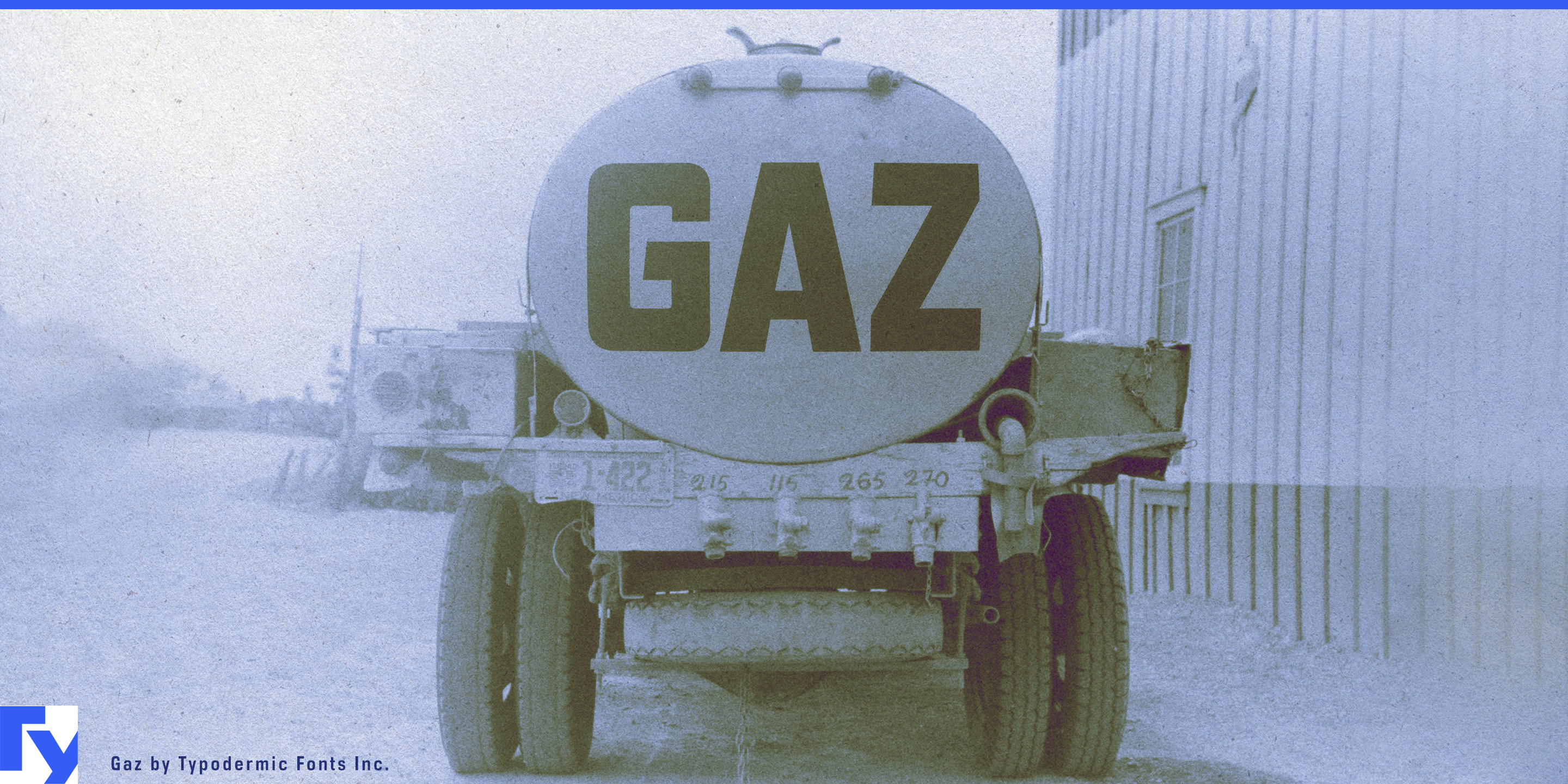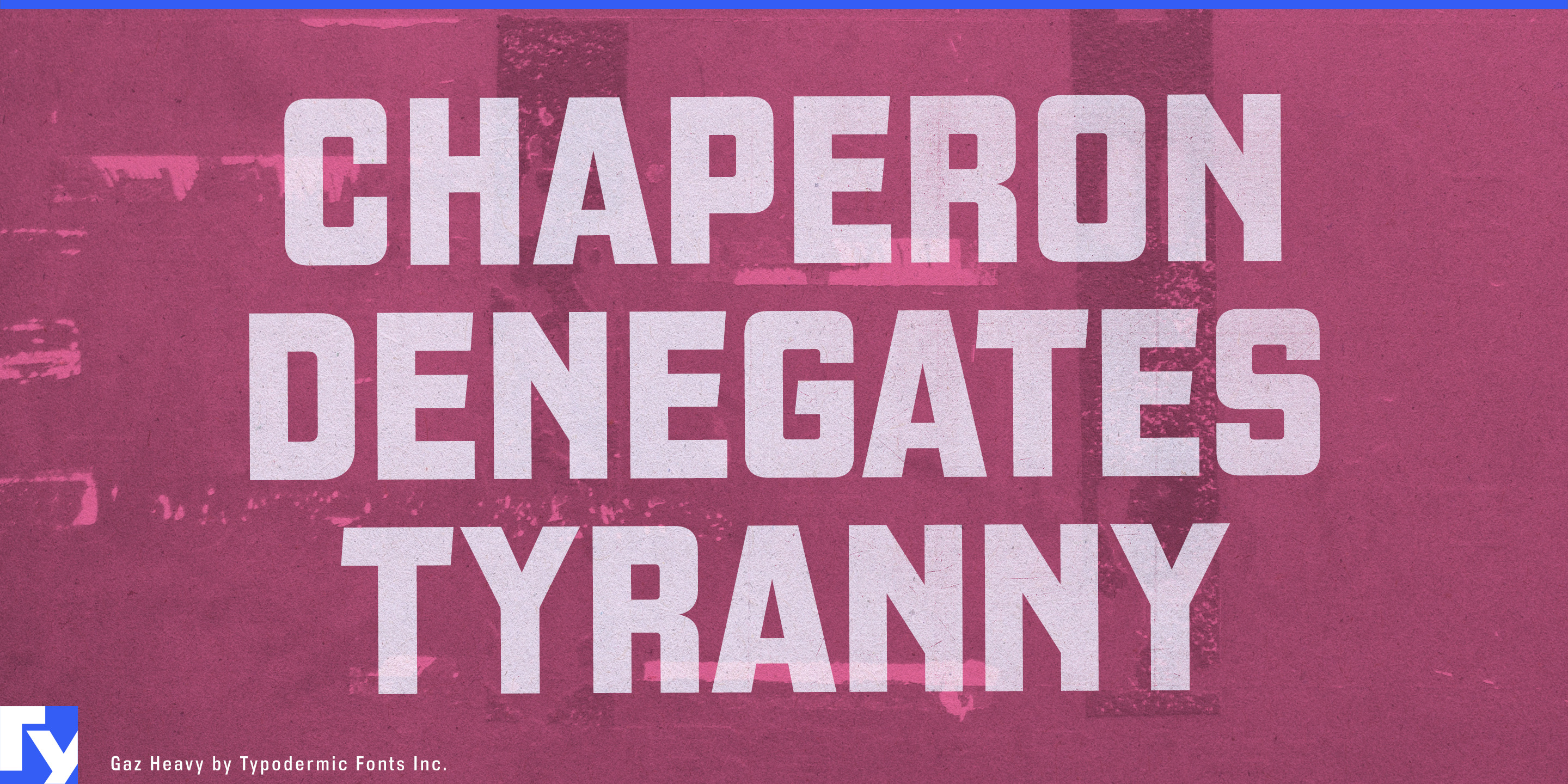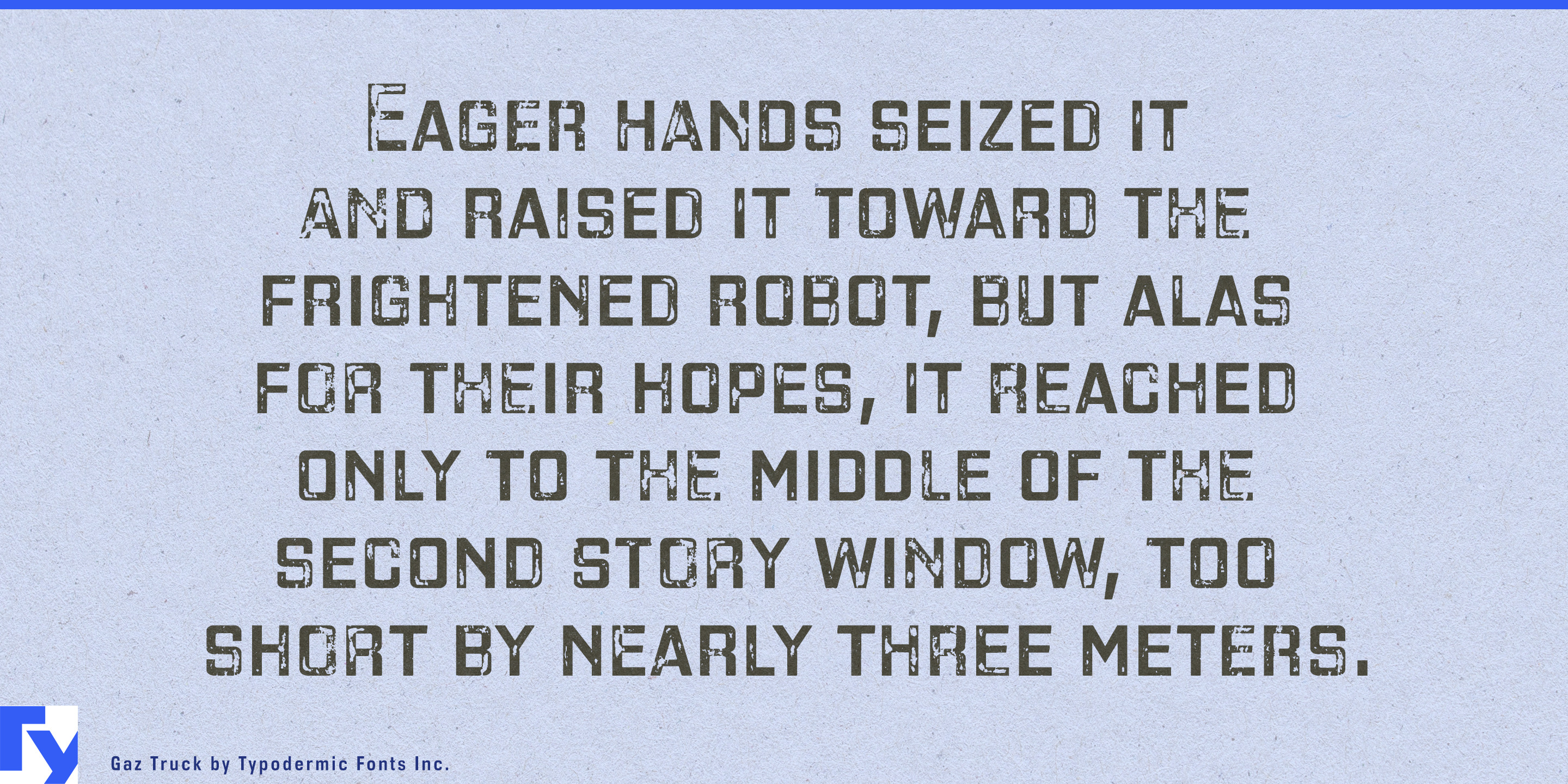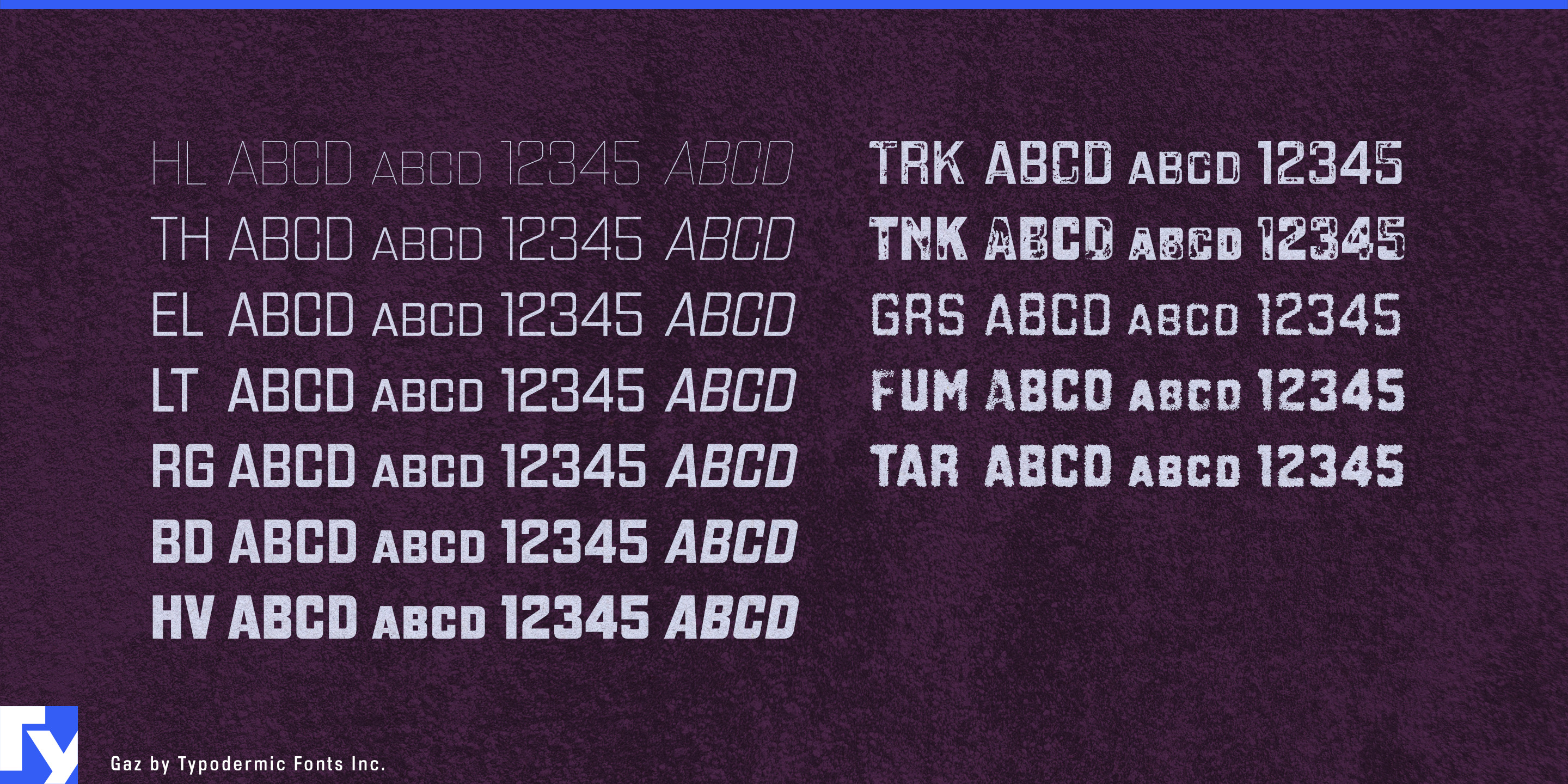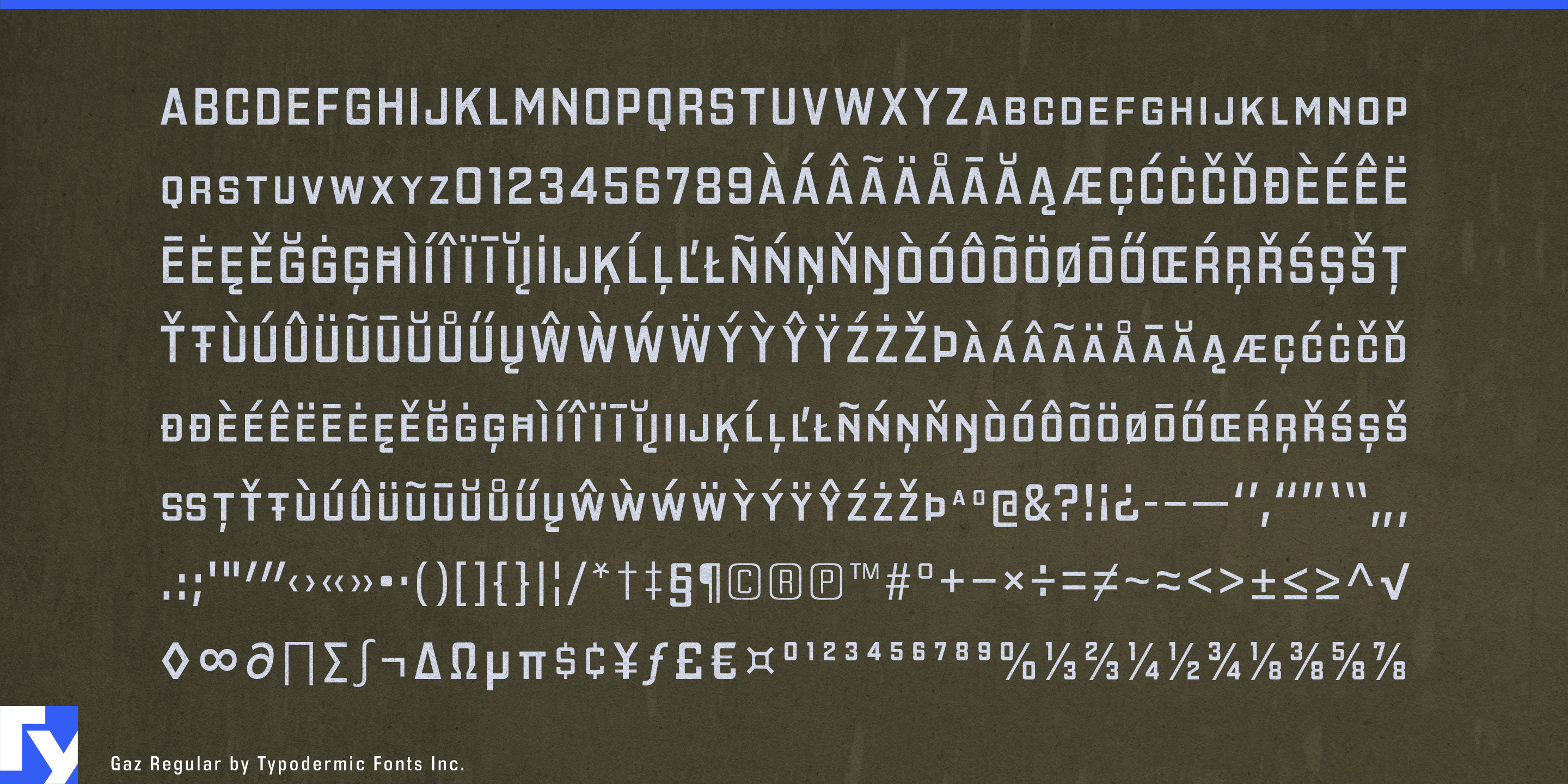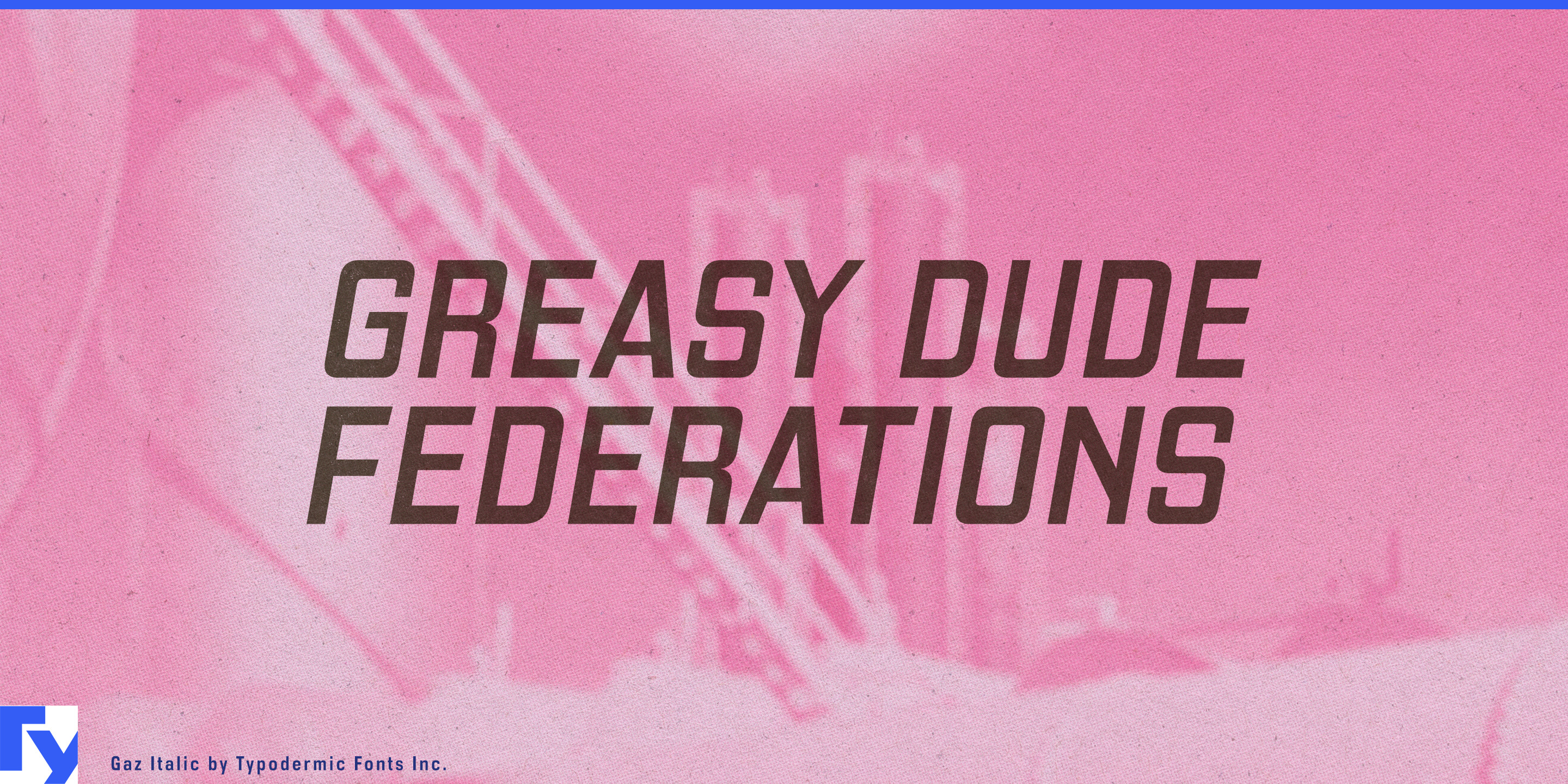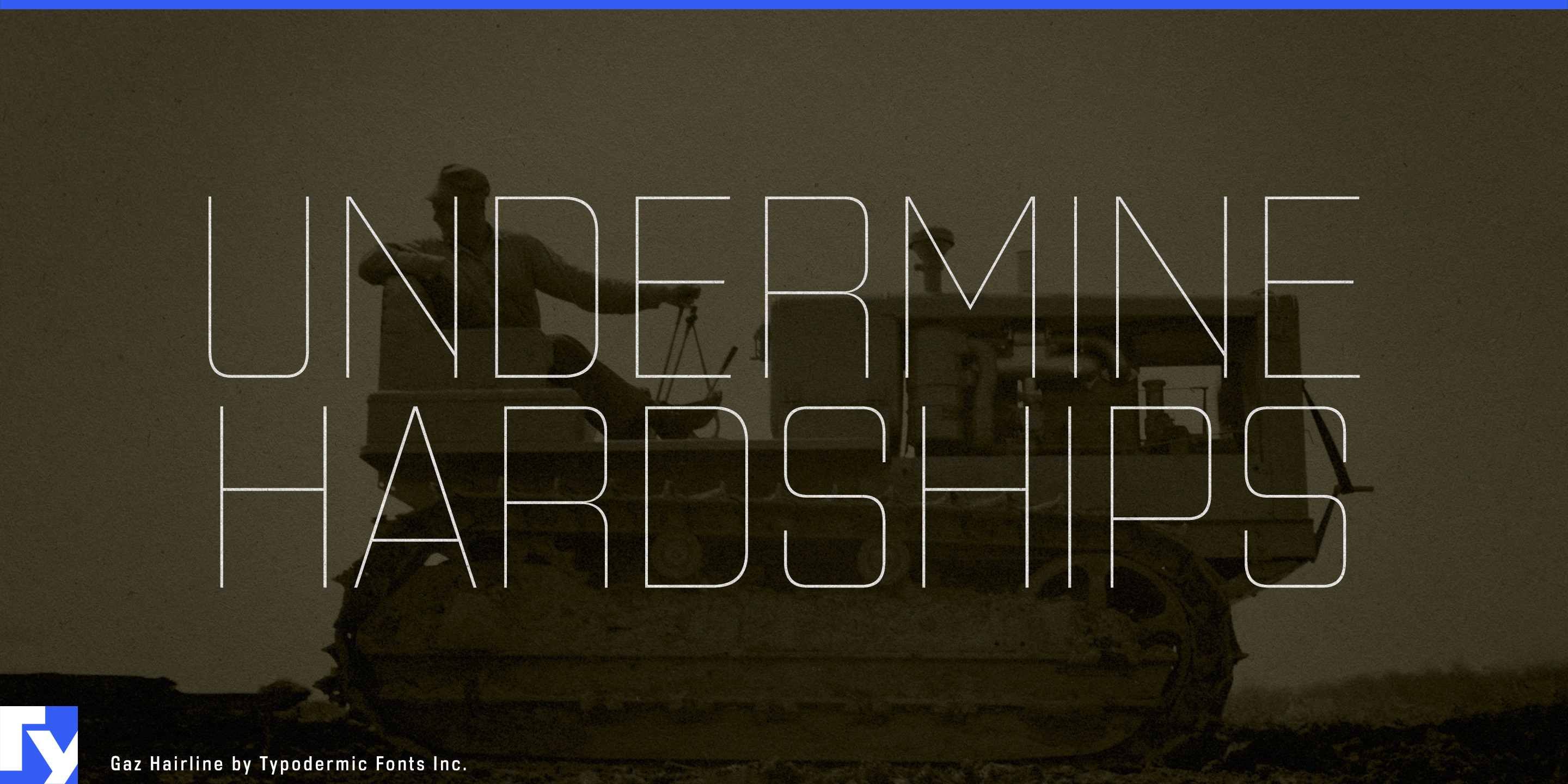
Gaz is a square, display typeface, influenced by twentieth-century gasoline station signs. Sign painters used to call this type of lettering “stove pipe”, due to the right angles and rounded corners. Despite its squareness, Gaz has a friendly, almost organic ambiance. Gaz is available in seven weights and italics as well as five greasy effect styles. These run-down, grungy Gaz styles contain ligatures which are automatically substituted in most applications, to project a more natural tone. Most Latin-based European writing systems are supported, including the following languages. Afaan Oromo, Afar, Afrikaans, Albanian, Alsatian, Aromanian, Aymara, Bashkir (Latin), Basque, Belarusian (Latin), Bemba, Bikol, Bosnian, Breton, Cape Verdean, Creole, Catalan, Cebuano, Chamorro, Chavacano, Chichewa, Crimean Tatar (Latin), Croatian, Czech, Danish, Dawan, Dholuo, Dutch, English, Estonian, Faroese, Fijian, Filipino, Finnish, French, Frisian, Friulian, Gagauz (Latin), Galician, Ganda, Genoese, German, Greenlandic, Guadeloupean Creole, Haitian Creole, Hawaiian, Hiligaynon, Hungarian, Icelandic, Ilocano, Indonesian, Irish, Italian, Jamaican, Kaqchikel, Karakalpak (Latin), Kashubian, Kikongo, Kinyarwanda, Kirundi, Kurdish (Latin), Latvian, Lithuanian, Lombard, Low Saxon, Luxembourgish, Maasai, Makhuwa, Malay, Maltese, Māori, Moldovan, Montenegrin, Ndebele, Neapolitan, Norwegian, Novial, Occitan, Ossetian (Latin), Papiamento, Piedmontese, Polish, Portuguese, Quechua, Rarotongan, Romanian, Romansh, Sami, Sango, Saramaccan, Sardinian, Scottish Gaelic, Serbian (Latin), Shona, Sicilian, Silesian, Slovak, Slovenian, Somali, Sorbian, Sotho, Spanish, Swahili, Swazi, Swedish, Tagalog, Tahitian, Tetum, Tongan, Tshiluba, Tsonga, Tswana, Tumbuka, Turkish, Turkmen (Latin), Tuvaluan, Uzbek (Latin), Venetian, Vepsian, Võro, Walloon, Waray-Waray, Wayuu, Welsh, Wolof, Xhosa, Yapese, Zapotec Zulu and Zuni.